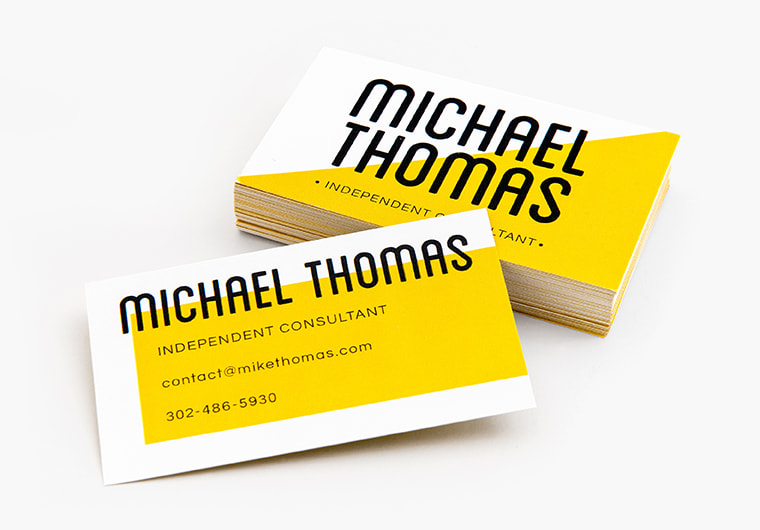
25+ Sans Serif Font Use SVG File. The best selection of sans serif fonts for windows and macintosh. Please enable it to use the advanced features of this website. Archive of freely downloadable fonts. Licensed for personal and commercial use. Download 10,000 fonts with one click for $19.95. Sans serif fonts, on the other hand, communicate a completely different message. The most common examples are arial and helvetica. While serif fonts are known to be more traditional, sans serif fonts bring that much needed modernistic touch to the design. Google fonts now supports variable fonts. Browse by alphabetical listing, by style, by author or by popularity. 18,846 downloads (2,554 yesterday) free for personal use. Sans serif fonts say modern, approachable, and clean. You can use these fonts to create custom styles. The short (and slightly vague) answer is there's no one size fits all solution. The fonts are all listed as free to use for personal and commercial uses, so let your creativity run wild.
97 Modern Sans Serif Fonts That Are Perfect For Brands Creativetacos. The fonts are all listed as free to use for personal and commercial uses, so let your creativity run wild. Please enable it to use the advanced features of this website. Browse by alphabetical listing, by style, by author or by popularity. Licensed for personal and commercial use. Archive of freely downloadable fonts. The short (and slightly vague) answer is there's no one size fits all solution. The best selection of sans serif fonts for windows and macintosh. 18,846 downloads (2,554 yesterday) free for personal use. While serif fonts are known to be more traditional, sans serif fonts bring that much needed modernistic touch to the design. Sans serif fonts say modern, approachable, and clean. Google fonts now supports variable fonts. Download 10,000 fonts with one click for $19.95. Sans serif fonts, on the other hand, communicate a completely different message. The most common examples are arial and helvetica. You can use these fonts to create custom styles.
Sans serif fonts, then, are the ones that don't have these ornamental lines in them. While serif fonts are known to be more traditional, sans serif fonts bring that much needed modernistic touch to the design. When to use serif fonts. So it increases the readability of the design. Want to learn more about fonts from our experts? The helvetica font is loved by designers. The most common examples are arial and helvetica.
They started being widely used during the 1920s bauhaus movement. The helvetica font is loved by designers. First of all, let's have a look at the appearance of both font families. The short (and slightly vague) answer is there's no one size fits all solution. Do you know your typefaces? A brand new serif with a bonus sans for. Added by williamson (1 style). You can use these fonts to create custom styles. Sans serif fonts are popular, and give your design a modern look. Sans serif fonts say modern, approachable, and clean. 18,846 downloads (2,554 yesterday) free for personal use. Arial is the most widely used font for both online and printed media. Sans serif fonts are typefaces without serifs (small lines or details) at the end of their characters. 117 downloads free for personal use. Upload your fonts to cufonfonts.com and archive them for use by all users around the world. It was designed to be metrically compatible with the ms sans bitmap font that shipped in early versions of microsoft windows. The fonts are all listed as free to use for personal and commercial uses, so let your creativity run wild. Check out these helpful articles below Today, these sans serif fonts are used in blogs and online articles in newspapers with large bodies of text, because their legibility on screen is really. Microsoft sans serif font is a very legible user interface (ui) font. Arial is also the default font in google docs. When to use serif fonts. Browse by alphabetical listing, by style, by author or by popularity. Laviossa elegant serif font is a stylish font that is classic, elegant and unique font that uses ligatures to smoothly link letters. Serif font and its uses. Download 10,000 fonts with one click for $19.95. Sans serif fonts, then, are the ones that don't have these ornamental lines in them. Serif fonts can look authoritative, professional and suggest the weight of history or experience. Want to learn more about fonts from our experts? Sans serif fonts, on the other hand, communicate a completely different message. The difference between sans serif vs serif font?
60 Free Sans Serif Fonts To Give Your Designs A Modern Touch. Browse by alphabetical listing, by style, by author or by popularity. Archive of freely downloadable fonts. The short (and slightly vague) answer is there's no one size fits all solution. Sans serif fonts say modern, approachable, and clean. The best selection of sans serif fonts for windows and macintosh. 18,846 downloads (2,554 yesterday) free for personal use. Google fonts now supports variable fonts. The most common examples are arial and helvetica. Please enable it to use the advanced features of this website. The fonts are all listed as free to use for personal and commercial uses, so let your creativity run wild. Download 10,000 fonts with one click for $19.95. While serif fonts are known to be more traditional, sans serif fonts bring that much needed modernistic touch to the design. You can use these fonts to create custom styles. Licensed for personal and commercial use. Sans serif fonts, on the other hand, communicate a completely different message.
60 Free Sans Serif Fonts To Give Your Designs A Modern Touch. The short (and slightly vague) answer is there's no one size fits all solution. Sans serif fonts, on the other hand, communicate a completely different message. The fonts are all listed as free to use for personal and commercial uses, so let your creativity run wild. Licensed for personal and commercial use. Browse by alphabetical listing, by style, by author or by popularity. Please enable it to use the advanced features of this website. The most common examples are arial and helvetica. Archive of freely downloadable fonts. You can use these fonts to create custom styles. Google fonts now supports variable fonts. Download 10,000 fonts with one click for $19.95. While serif fonts are known to be more traditional, sans serif fonts bring that much needed modernistic touch to the design. Sans serif fonts say modern, approachable, and clean. 18,846 downloads (2,554 yesterday) free for personal use. The best selection of sans serif fonts for windows and macintosh.
While serif fonts are known to be more traditional, sans serif fonts bring that much needed modernistic touch to the design.
97 Modern Sans Serif Fonts That Are Perfect For Brands Creativetacos. While serif fonts are known to be more traditional, sans serif fonts bring that much needed modernistic touch to the design. The best selection of sans serif fonts for windows and macintosh. 18,846 downloads (2,554 yesterday) free for personal use. Licensed for personal and commercial use. You can use these fonts to create custom styles. Archive of freely downloadable fonts. Sans serif fonts say modern, approachable, and clean. Download 10,000 fonts with one click for $19.95. Google fonts now supports variable fonts. The most common examples are arial and helvetica. Browse by alphabetical listing, by style, by author or by popularity. The short (and slightly vague) answer is there's no one size fits all solution. The fonts are all listed as free to use for personal and commercial uses, so let your creativity run wild. Sans serif fonts, on the other hand, communicate a completely different message. Please enable it to use the advanced features of this website.
Laviossa elegant serif font is a stylish font that is classic, elegant and unique font that uses ligatures to smoothly link letters.
60 Free Sans Serif Fonts To Give Your Designs A Modern Touch. Please enable it to use the advanced features of this website. The most common examples are arial and helvetica. Google fonts now supports variable fonts. The fonts are all listed as free to use for personal and commercial uses, so let your creativity run wild. Browse by alphabetical listing, by style, by author or by popularity. The best selection of sans serif fonts for windows and macintosh. 18,846 downloads (2,554 yesterday) free for personal use. Download 10,000 fonts with one click for $19.95. You can use these fonts to create custom styles. Licensed for personal and commercial use. Archive of freely downloadable fonts. The short (and slightly vague) answer is there's no one size fits all solution. Sans serif fonts, on the other hand, communicate a completely different message. While serif fonts are known to be more traditional, sans serif fonts bring that much needed modernistic touch to the design. Sans serif fonts say modern, approachable, and clean.
Pin Di Sans Serif Fonts. Google fonts now supports variable fonts. The most common examples are arial and helvetica. Archive of freely downloadable fonts. Sans serif fonts, on the other hand, communicate a completely different message. Licensed for personal and commercial use. You can use these fonts to create custom styles. Please enable it to use the advanced features of this website. The best selection of sans serif fonts for windows and macintosh. Browse by alphabetical listing, by style, by author or by popularity. The fonts are all listed as free to use for personal and commercial uses, so let your creativity run wild. Download 10,000 fonts with one click for $19.95. While serif fonts are known to be more traditional, sans serif fonts bring that much needed modernistic touch to the design. The short (and slightly vague) answer is there's no one size fits all solution. 18,846 downloads (2,554 yesterday) free for personal use. Sans serif fonts say modern, approachable, and clean.
First of all, let's have a look at the appearance of both font families.
Do you know your typefaces? Sans serif fonts say modern, approachable, and clean. Added by williamson (1 style). Do you know your typefaces? They started being widely used during the 1920s bauhaus movement. First of all, let's have a look at the appearance of both font families. You can use these fonts to create custom styles. 117 downloads free for personal use. Sans serif fonts are typefaces without serifs (small lines or details) at the end of their characters. The most common examples are arial and helvetica.